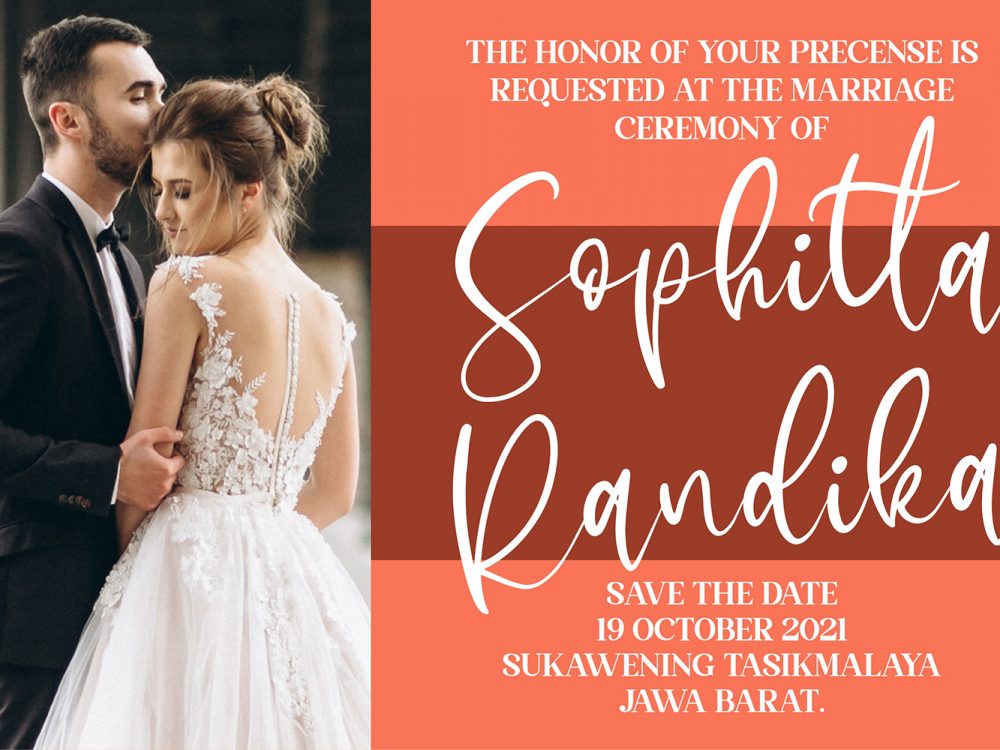
Sophitta Free Font
Sophitta Free Font is an interesting elegant handwritten typeface that stands out with its modern calligraphic style compared to other fonts. This font is very suitable for creating various projects that require a scripted handwritten font. Use this font to create memorable romantic posters, wedding invitations, greeting cards, branding, flyers, t-shirt and pillow prints, and more. If you like it don’t forget to check out the full version.